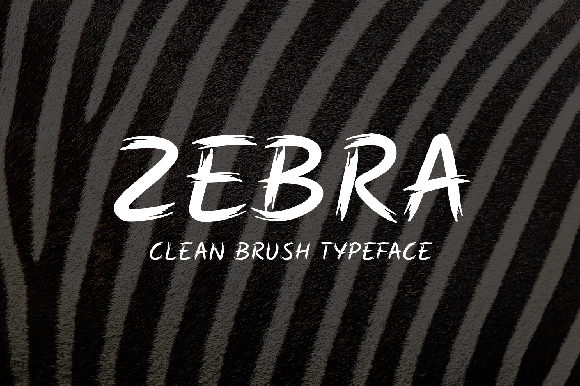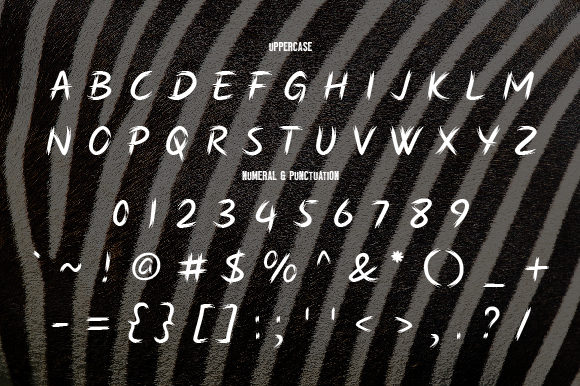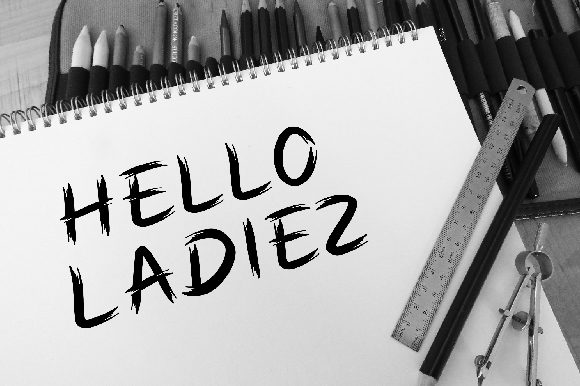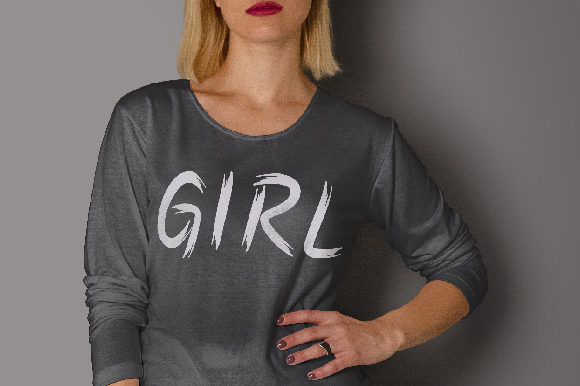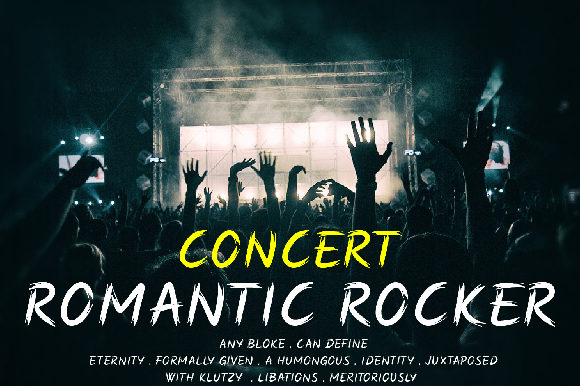
Zebra Font
About Zebra Font
The Zebra is a brush typeface designed to give your work a fresh and creative feel. It’s suitable for branding, handwritten quotes, packaging, merchandise, blog design, modern advertising design, invitation, Book Cover, tittle, Invitation, special events, birthday, custom mug, pillow, t-shirts, etc.